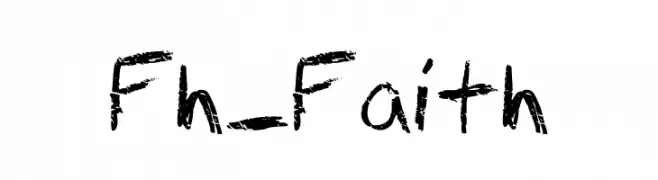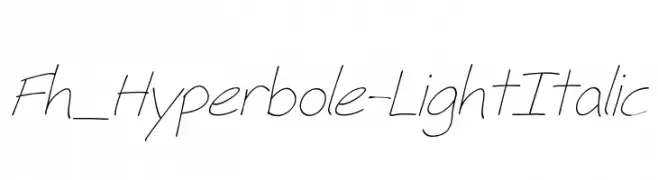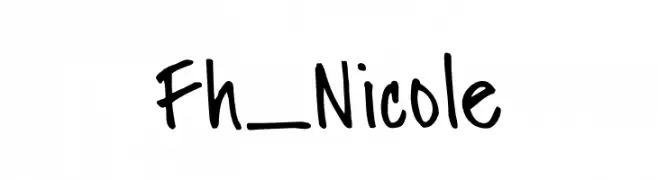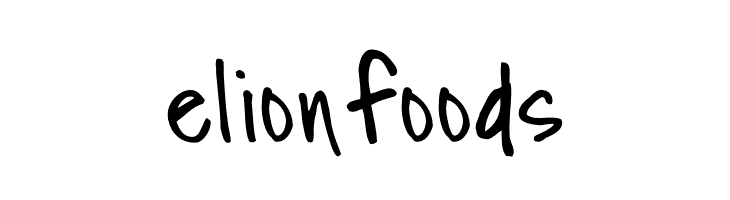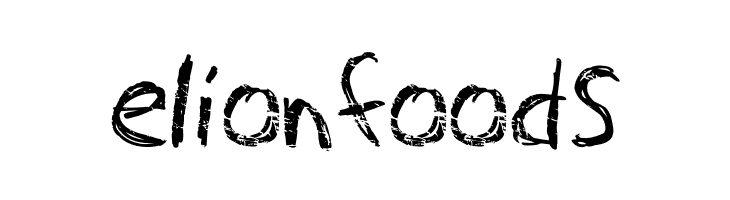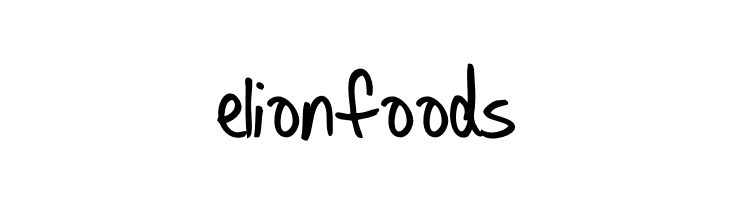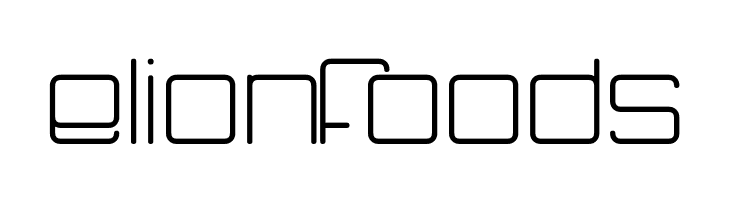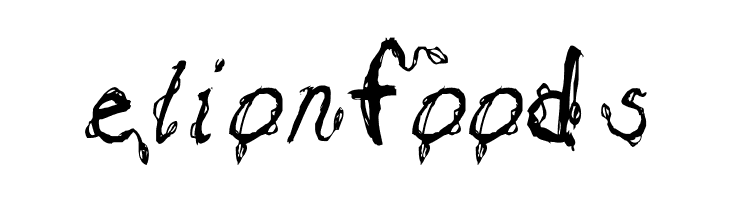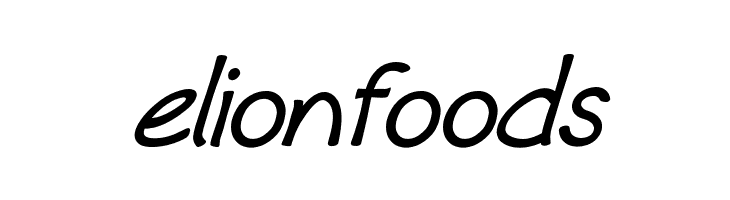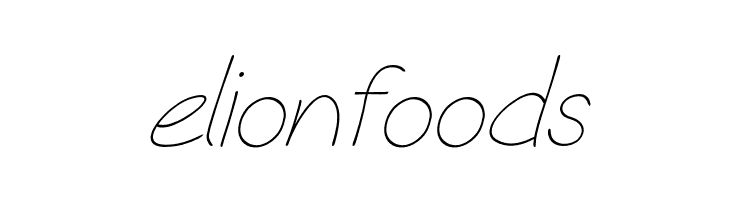
• Fh_Nicole
A playful, casual handwritten font with uneven strokes and an organic flow.
• Fh_Faith
A rugged, distressed font with a hand-drawn, artistic style.
• Fh_Allisa
A casual, handwritten font with a playful and informal style.
• Fh_Obscene
A grungy, distressed font with splattered ink effects and dynamic strokes.
• Fh_Script
A playful handwritten font with dynamic strokes and a casual style.
• Fh_Scribble
A playful, hand-drawn font with a doodle-like, textured style.
• Fh_Blue
A modern, geometric font with clean lines and rounded corners, offering a futuristic look.
• Fh_Euphoria
A whimsical, vine-adorned font with a hand-drawn, artistic style.
• Fh_Hyperbole-BoldItalic
A bold, italicized handwritten font with a casual and dynamic style.
• Fh_Hyperbole-LightItalic
A light, handwritten italic font with a modern and elegant style.